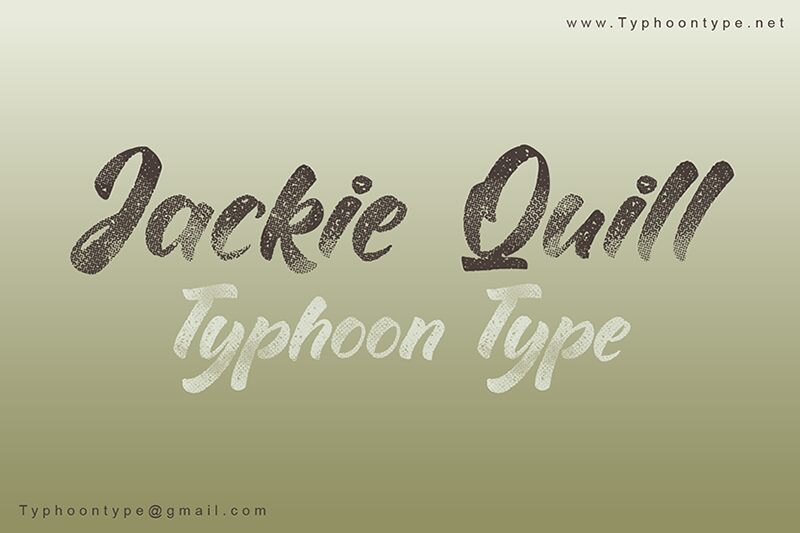
Jackie Quill font by Typhoon Type - Suthi Srisopha is a bold brush typeface with an artistic flair. Its textured appearance and handwritten style give it a casual elegance, perfect for projects needing that organic flow. This modern script-influenced font offers a personal touch to your designs.
Use Jackie Quill for branding, invitation cards, social media graphics, posters, logos, packaging designs, book covers, greeting cards, product labels, and event invitations. This free handwritten font enhances any project where an authentic and stylish look is needed.